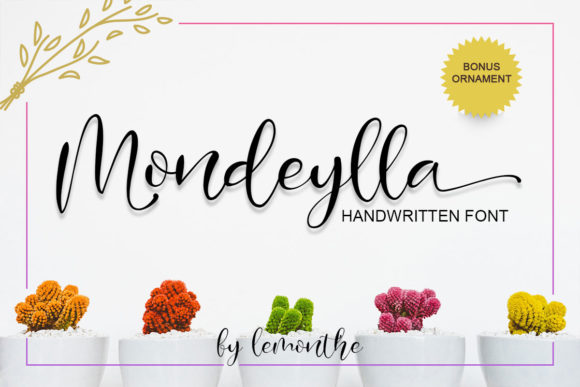
Unleash the Cinematic Charm: Introducing Mondeylla Font - The Epitome of Cinematic Elegance
In a world of ordinary fonts, Mondeylla Font emerges as a radiant star, captivating hearts with its enchanting handwritten style and mesmerizing elegance. Inspired by the silver screen, this script font embodies the essence of cinematic storytelling, transporting you to realms of imagination and emotion.
Step into a world of cinematic brilliance with Mondeylla Font, where your words dance on the screen like graceful ballet dancers, leaving a trail of visual enchantment. With its timeless elegance and authentic calligraphy, this font is a masterpiece that transforms ordinary text into works of art.
Effortless Beauty and Unparalleled Creativity:
Mondeylla Font's varying baseline, smooth lines, gorgeous glyphs, and stunning alternates create a symphony of visual delight. Each letter is a brushstroke of artistry, carefully crafted to evoke emotions and captivate audiences. Experience the joy of effortless beauty and unparalleled creativity as you witness your words come alive with cinematic flair.
A Font for All Occasions:
Whether you're a filmmaker crafting a captivating screenplay, a designer weaving tales through visual narratives, or a creative soul seeking to add a touch of magic to your projects, Mondeylla Font is your faithful companion. Its versatility extends from movie scripts to branding, logos, wedding invitations, and personal correspondence. Unleash your imagination and let Mondeylla Font elevate your creations to new heights.
Experience the Magic of Mondeylla Font:
With Mondeylla Font, you'll discover a world of boundless possibilities, where your creativity knows no limits. Its PUA encoding grants you effortless access to a treasure trove of glyphs and swashes, empowering you to add intricate details and flourishes that bring your visions to life. Dive into a realm of visual sorcery and let Mondeylla Font cast its spellbinding charm upon your projects.